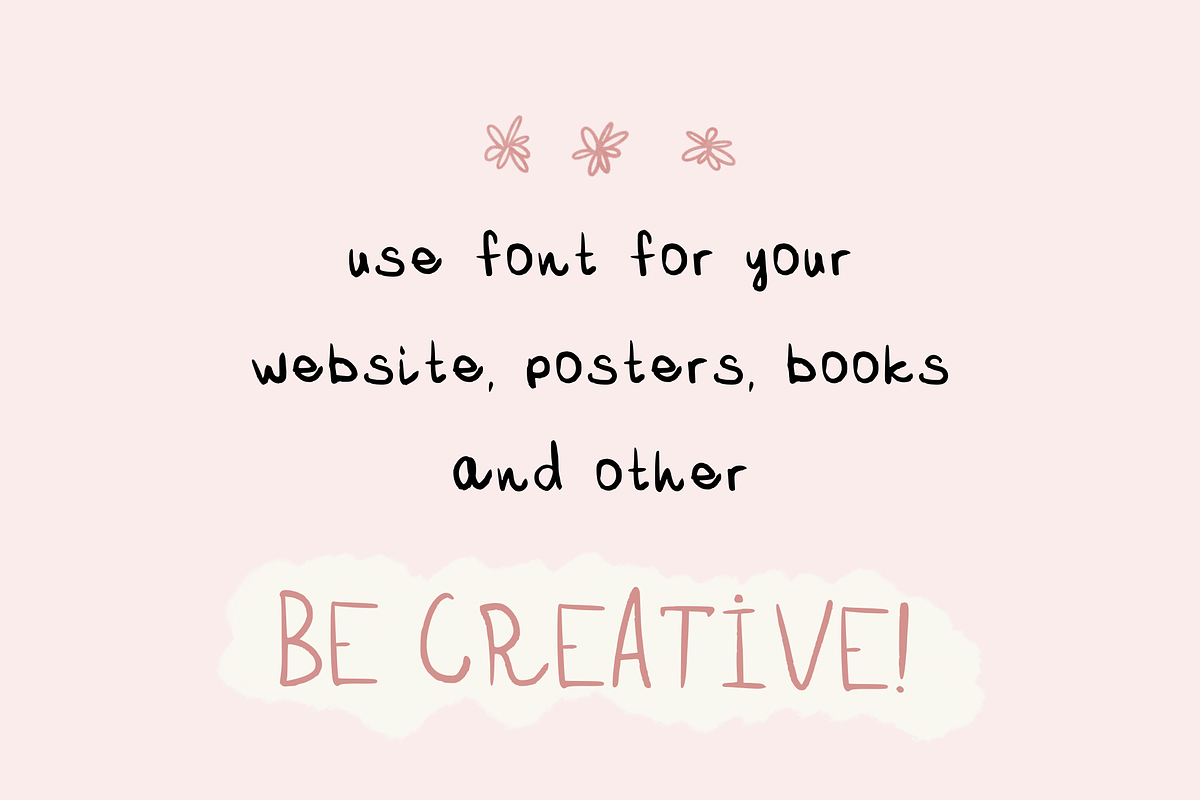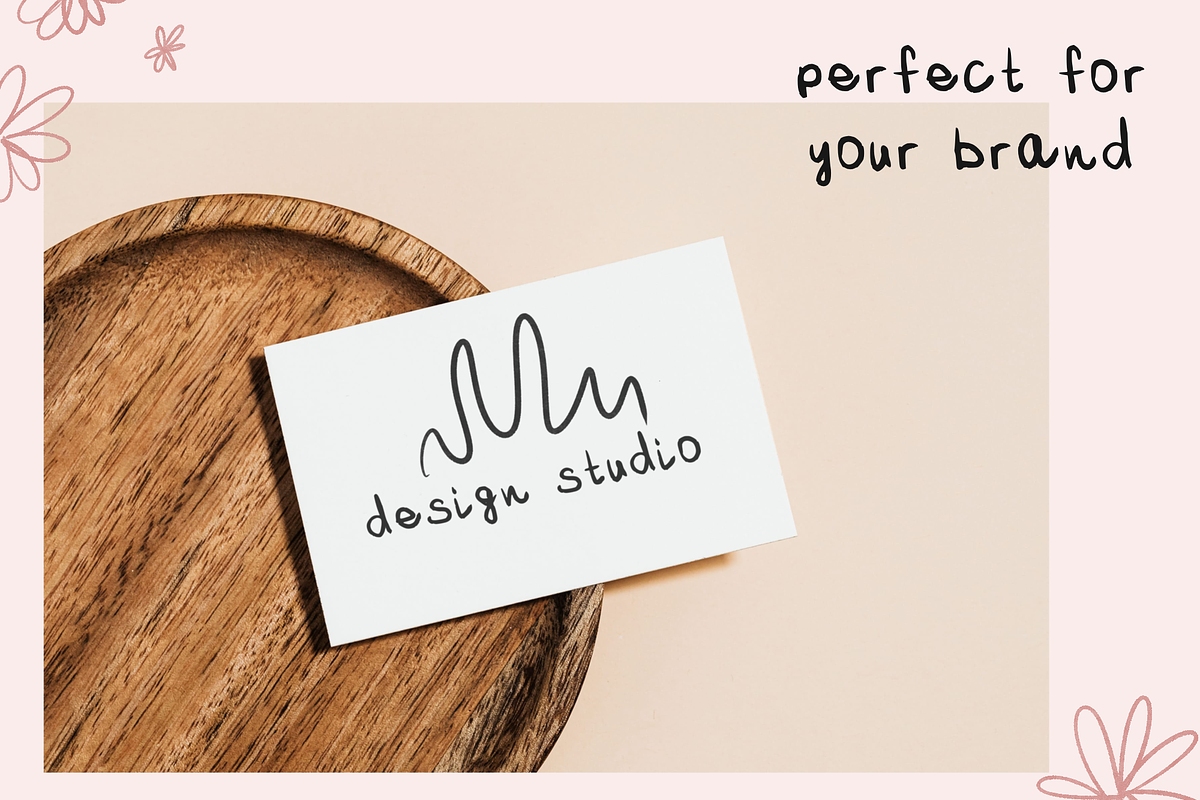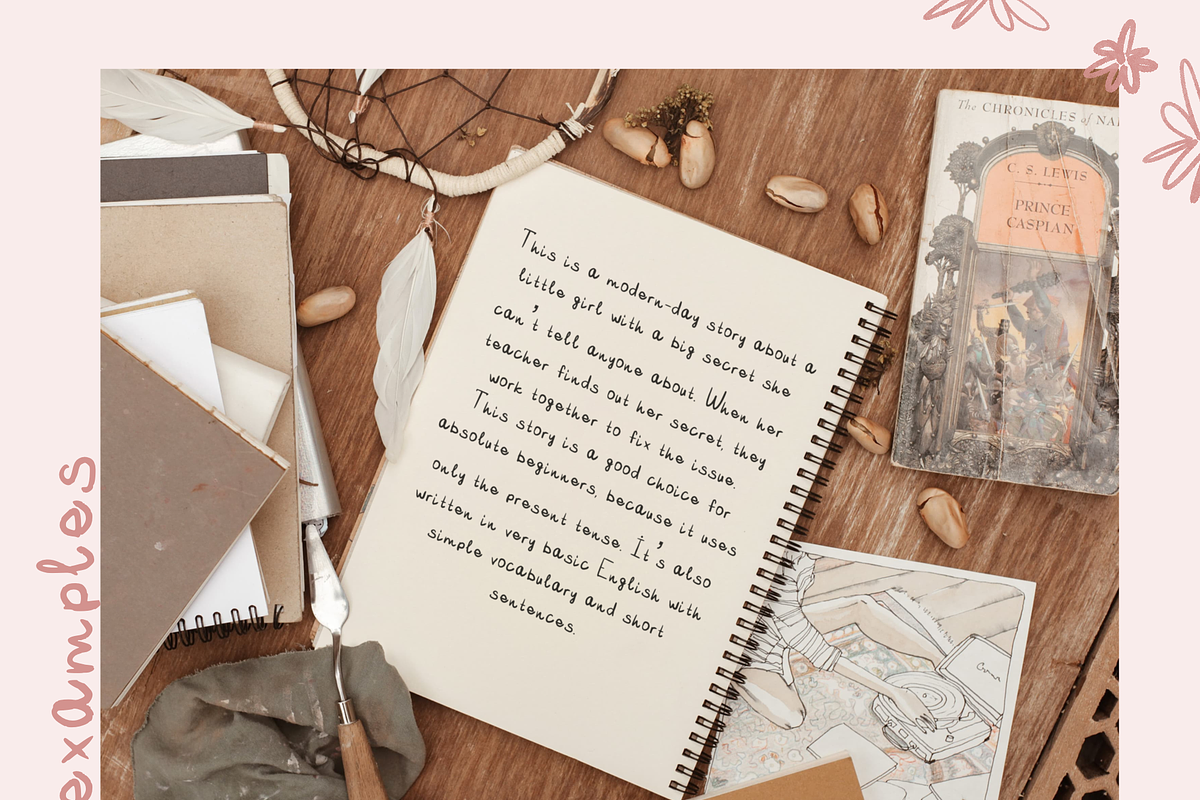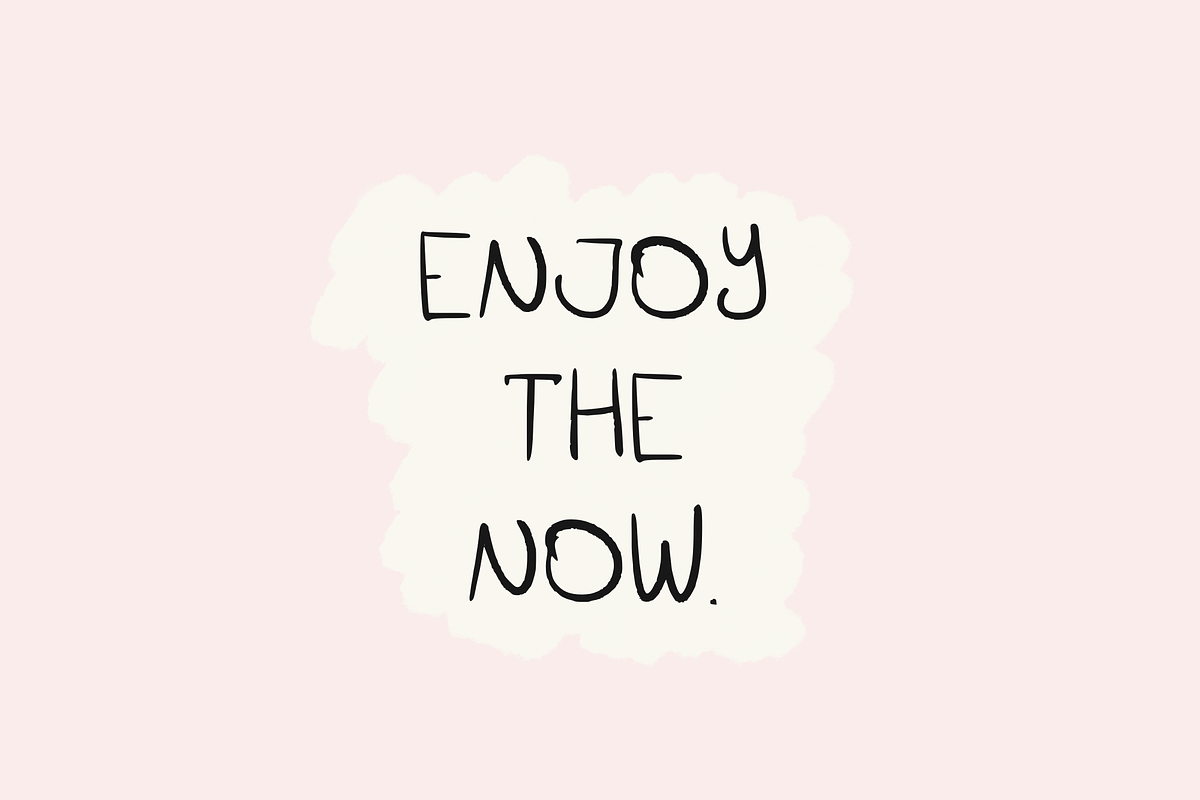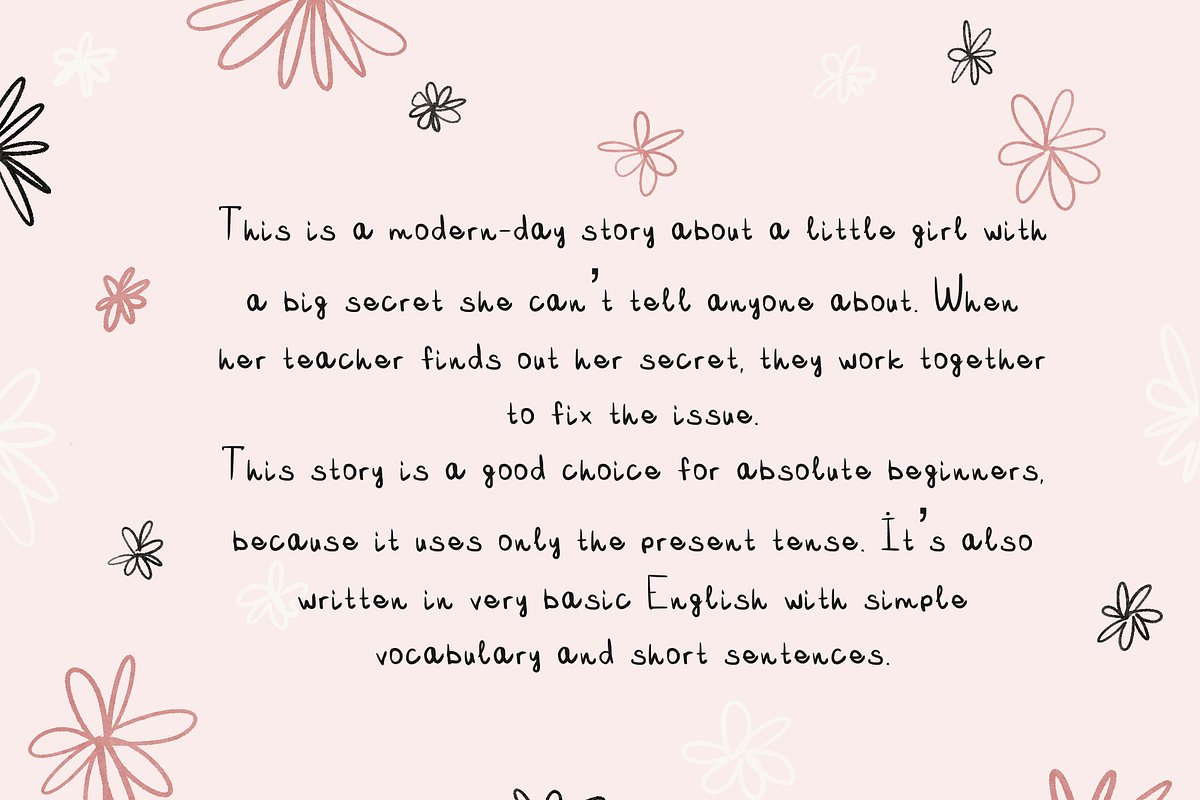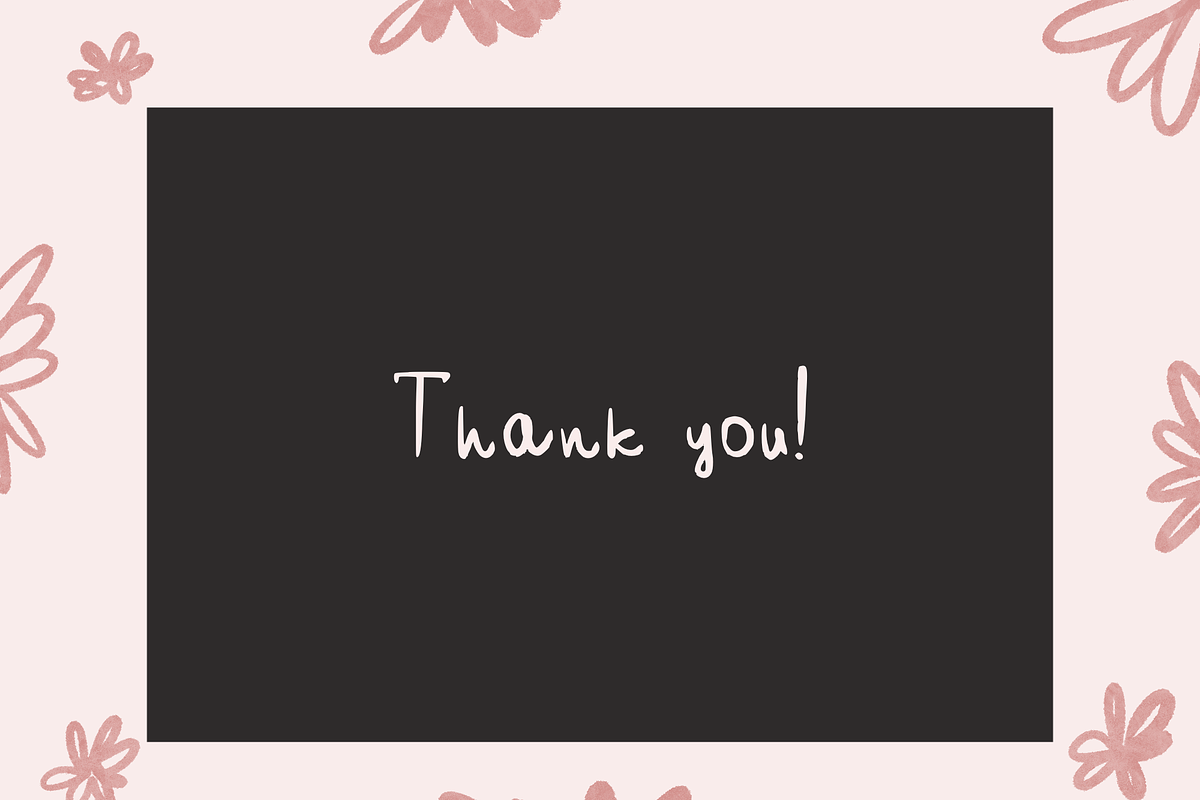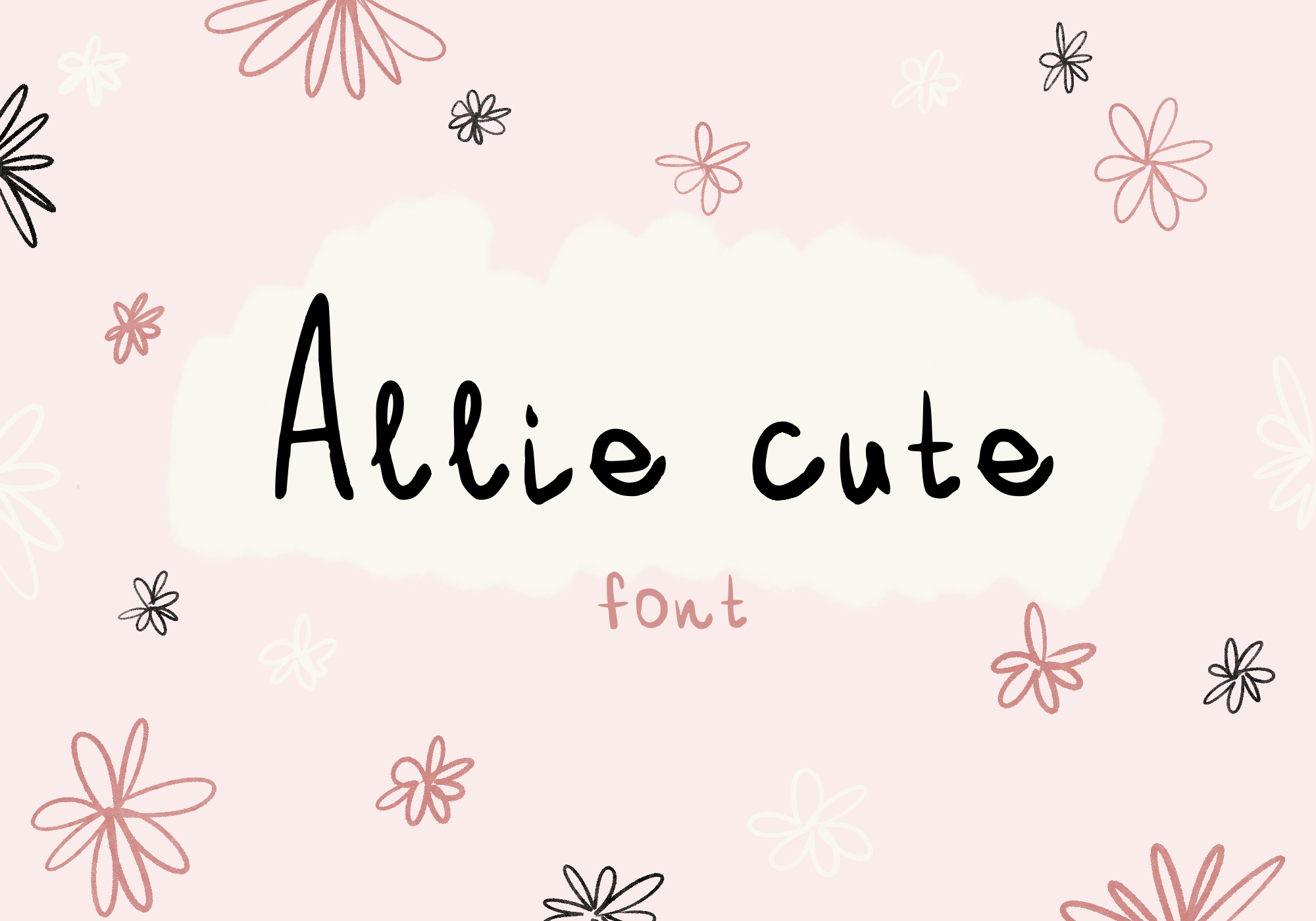
Allie cute font
Allie cute font - are handwritten that looks so very cute. Perfect for quotes, posters, flyers, social media posts, for playful branding & quotes, for quiry packaging and so much more!